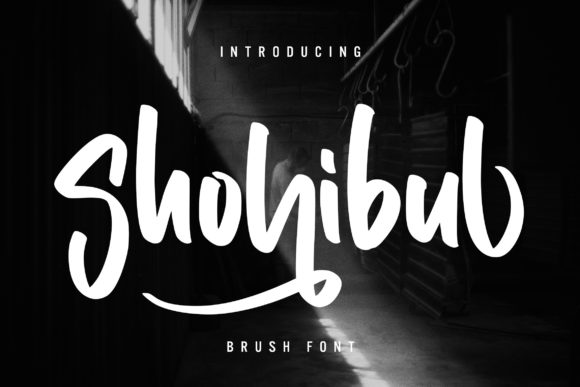
Embark on a typographic odyssey with Shohibul, a font of elegance and charm. This script font unravels a tale of confidence, strength, and dynamism, leaving an everlasting impression on your designs.
Unleash your creativity with Shohibul, a script font that dances across your screen with grace and allure. Its bold strokes and captivating curves create an aura of nostalgia, evoking memories of handwritten letters and timeless tales.
Imagine your designs adorned with Shohibul's enchanting presence, adding a touch of sophistication and intrigue. This font is a masterpiece, carefully crafted to convey emotions and messages in a way that ordinary fonts simply cannot.
Immerse yourself in the world of Shohibul and discover a font that captures hearts and commands attention. Let your designs radiate confidence, exude strength, and spark a sense of dynamism that leaves your audience spellbound.